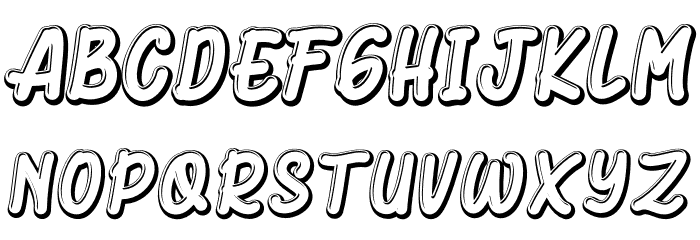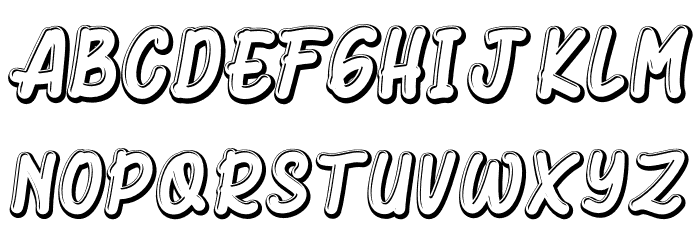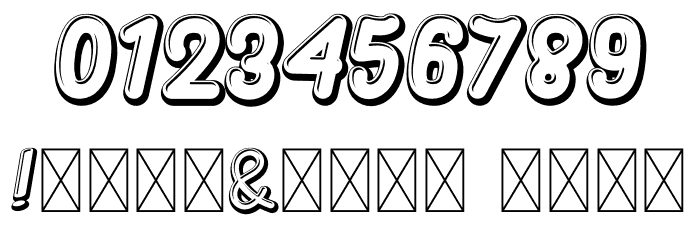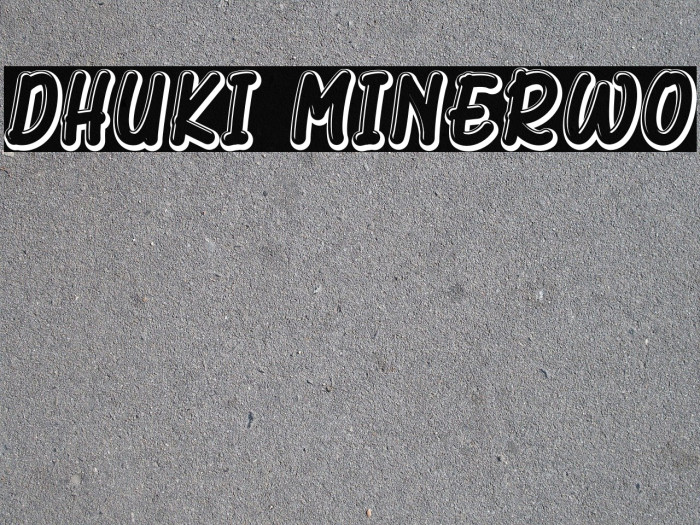
Dhuki Minerwo Font
This font features a bold, playful style with a distinct outline that gives each character a three-dimensional effect. The letters are rounded and slightly italicized, adding a sense of movement and energy. The uppercase and lowercase characters maintain a consistent style, with a slight variation in size and shape to distinguish them. The numerals are equally bold and maintain the same playful aesthetic. Special characters are included, though some appear as placeholders, suggesting a decorative or thematic use. The overall design is eye-catching and suitable for projects that require a fun and dynamic look.
A bold, playful font with a three-dimensional outline and rounded, slightly italicized characters.
- Proposed Projects: Ideal for children's books, playful branding, event posters, and any design needing a lively and energetic typeface.
- Overall Style: Playful, Energetic, Decorative